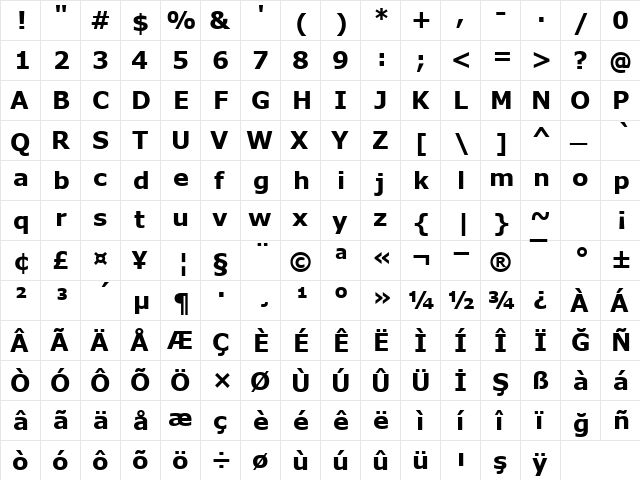
Verdana Digiscream Bold
Design Context for Verdana Digiscream Typeface
Verdana Digiscream is a composed and adaptable typeface that performs quietly and consistently across a wide range of design contexts. The heavy weight commands attention and anchors typographic hierarchies.
Pro Tip: Pair Verdana Digiscream with a font of contrasting weight or personality to build a more expressive typographic hierarchy.